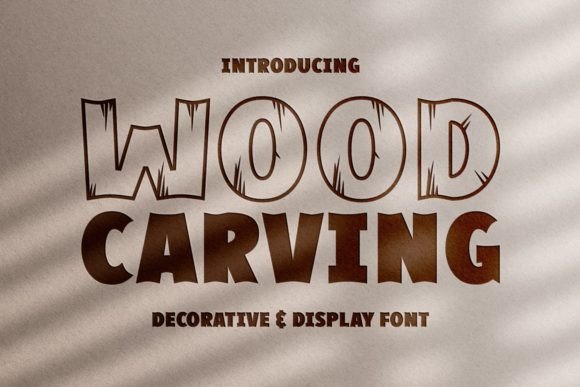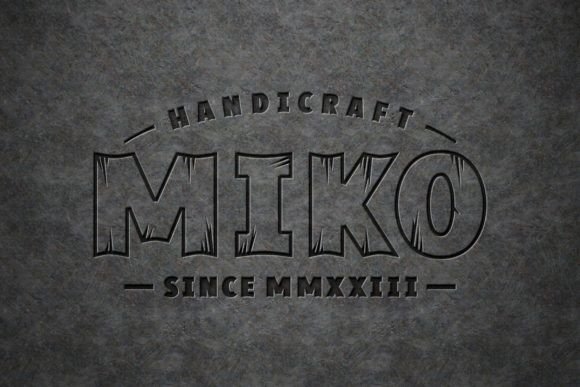
Introducing a one-of-a-kind display font that combines the intricate beauty of wood carving with modern typography. Each letterform is handcrafted with meticulous attention to detail, showcasing unique wood grain patterns and textures. Wood Carving is perfect for branding, packaging, and editorial design that requires a touch of rustic elegance.
Wood Carving Font